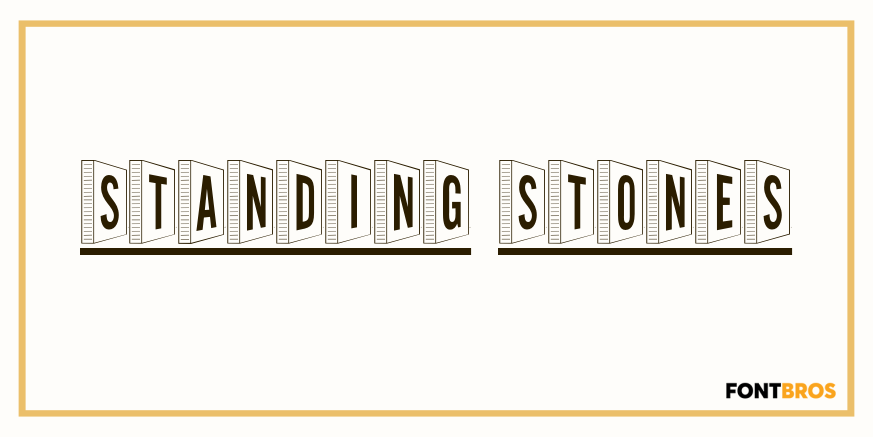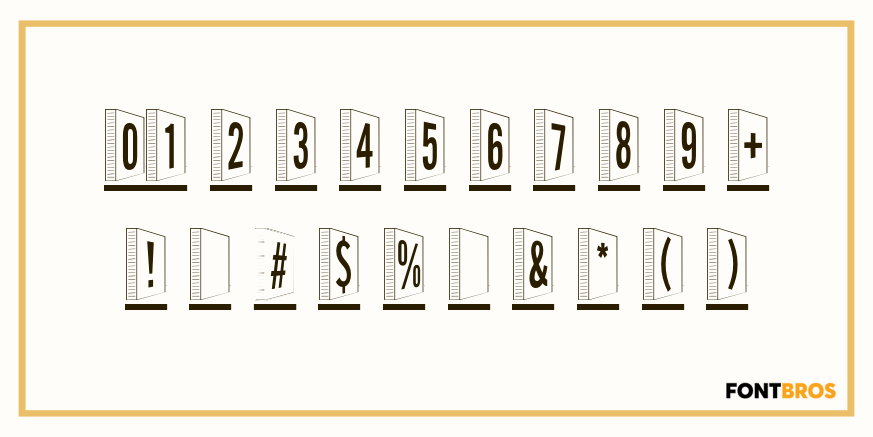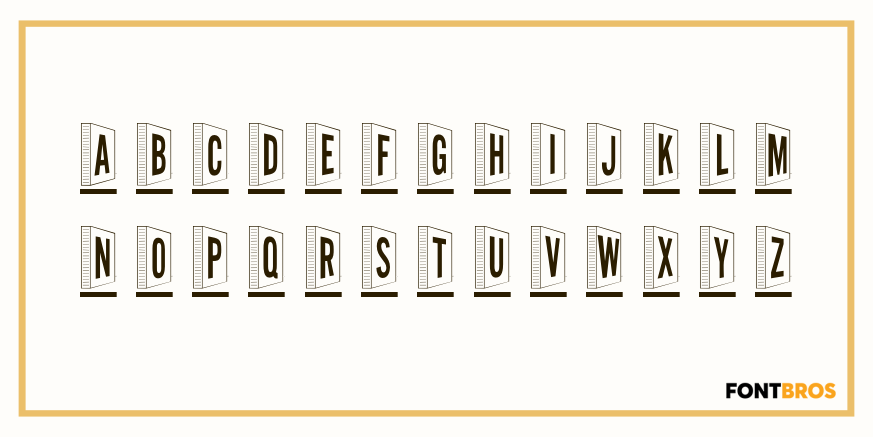
Standing Stones
Redrawn from a strange type originally made about 1850, and sold by the Connors Foundry, New York.
We cannot guarantee that Connors originated it, since they were among the first to have facilities for pirating other foundries' types.
Standing Stones by Solotype